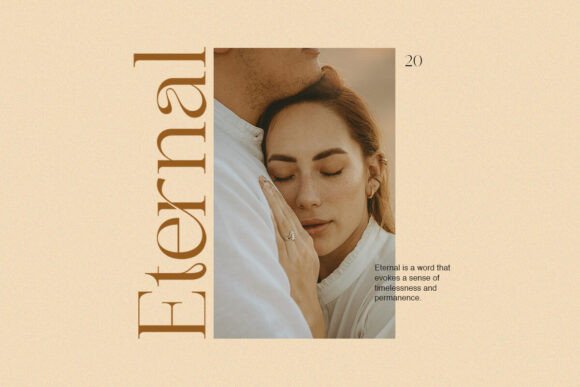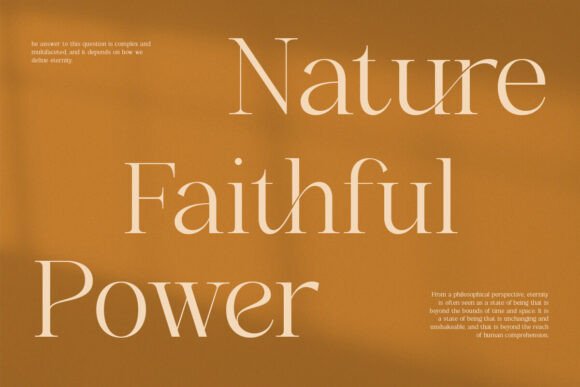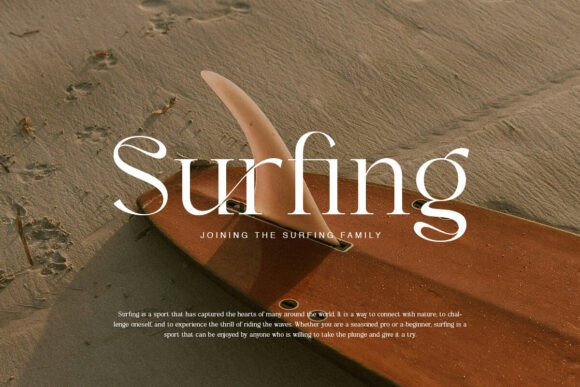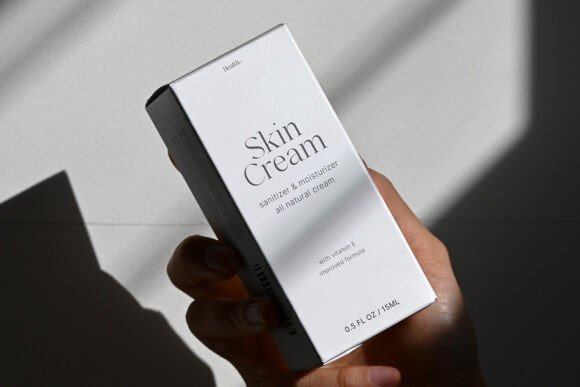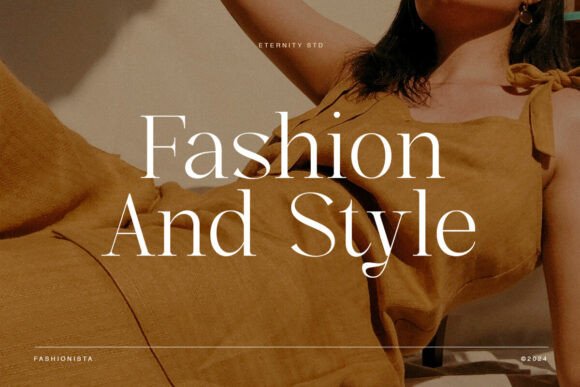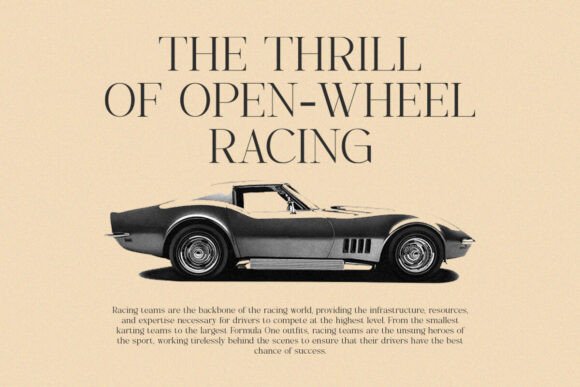
Unlocking Luxury: The Caster Modern Chic Serif Revolution
Have you ever been in the midst of a design project, everything is going smoothly, and then you hit a roadblock – the font. You know, that one elusive element that can make or break your entire aesthetic. I recall a particularly frustrating experience with a client who wanted a logo that exuded luxury and sophistication. After hours of scouring font libraries, I stumbled upon the Caster Modern Chic Serif. It was love at first sight! ✨
A Game-Changing Font: An Honest Review
What I Love About Caster
- ✅ Sleek Alternates: The font comes with a range of stylish alternates that can instantly elevate your design from ordinary to extraordinary.
- ✅ Elegant Ligatures: The ligatures in Caster are seamless and sophisticated, perfect for creating a cohesive and luxurious feel.
- ✅ Multilingual Support: Whether you’re working on a project in English, Spanish, French, or any other language, Caster has got you covered.
While Caster is an amazing font, there are a few minor things to keep in mind:
- ⚠️ Glyph Overload: With so many alternates and ligatures, it can be overwhelming to navigate the glyph panel at first. Give it some time, and you’ll get the hang of it! 🤔
- ⚠️ Some Limited Use Cases: While Caster is incredibly versatile, there might be specific design scenarios where a more minimalist or bold font is required. However, for luxury and chic designs, it shines.
The Story Behind Caster: Designer Inspiration
The Caster Modern Chic Serif was inspired by the timeless elegance of classic serif fonts, combined with modern design sensibilities. The creator aimed to produce a font that embodies luxury, sophistication, and versatility. By studying historical typography and current design trends, the designer crafted Caster to meet the needs of contemporary designers seeking a high-end aesthetic.
Q: Is Caster suitable for body text?
A: Absolutely! While Caster shines in titles and headings, its clear and elegant design makes it suitable for body text as well, especially in articles, blogs, and magazines.
Q: Is Caster a script font?
A: No, Caster is a serif font with modern chic characteristics. It doesn’t have the flowing script style but offers elegant serifs and sophisticated alternates.